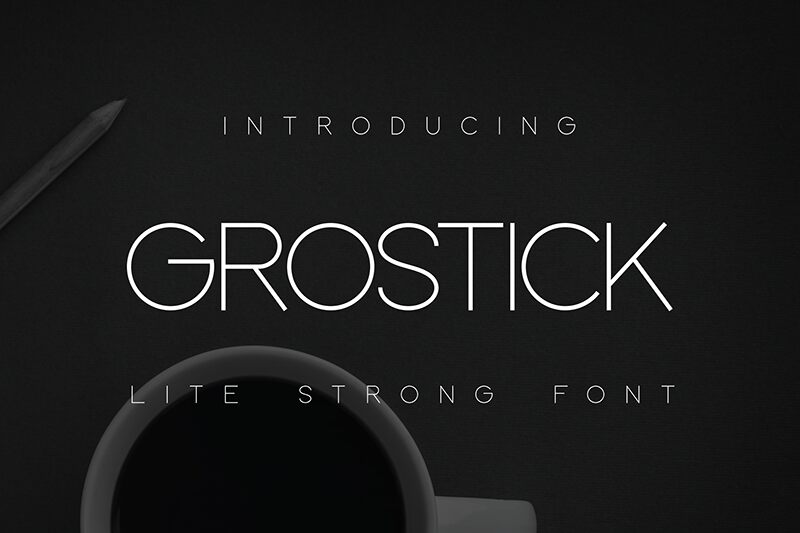
GROSTICK
Grostick font by Iskandar Zulkarnain is a light sans serif typeface with clean shapes and lines. It perfectly balances contemporary design with a minimalist vibe, delivering vintage vibes in each letter. The geometric characters unique to this font give it the edge which allows it to deliver stainless communication, regardless of its use.
The free stunning display font is multi-purpose and can be used for headings, short text paragraphs, body text on posters, brochures, business cards, website designs, banners, packaging projects and labels. In addition to still uses for branding projects typographers can create incredible animated typography videos with Grostick on After Effects or Envato Elements.